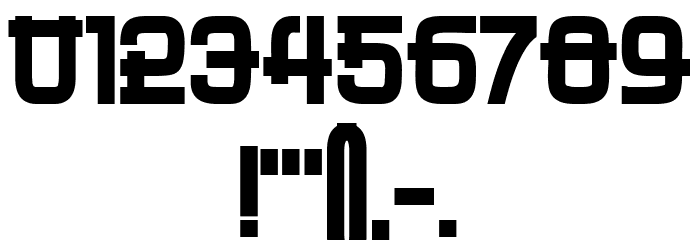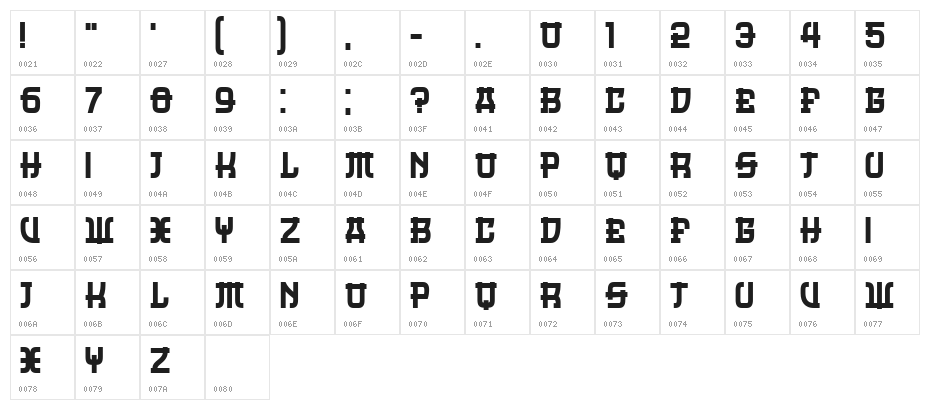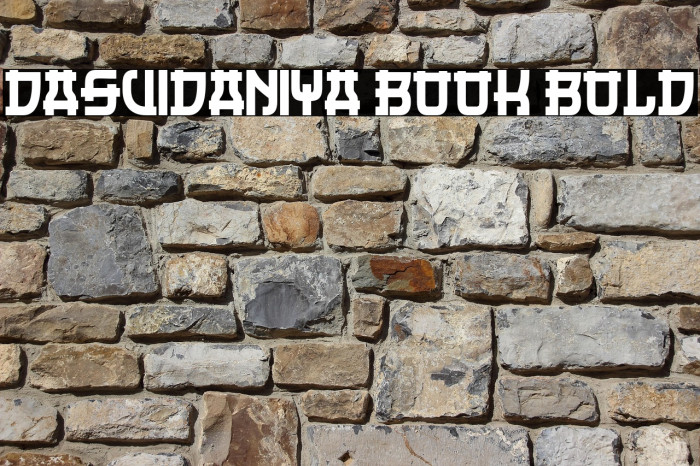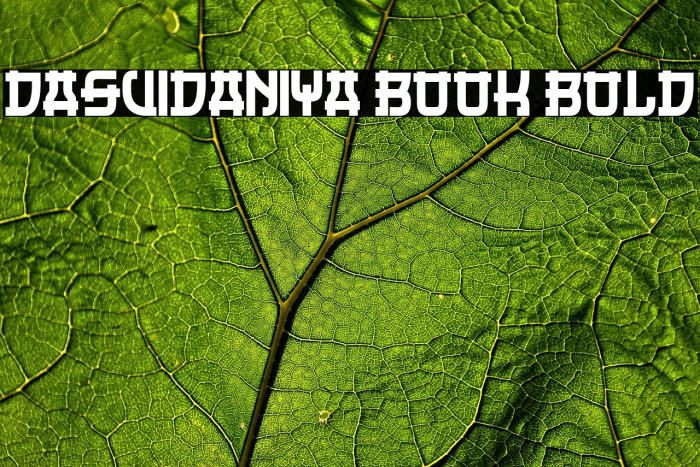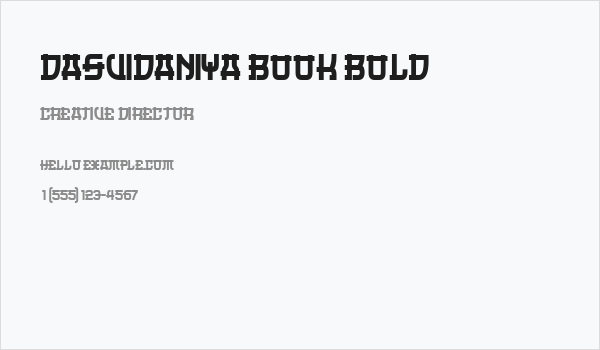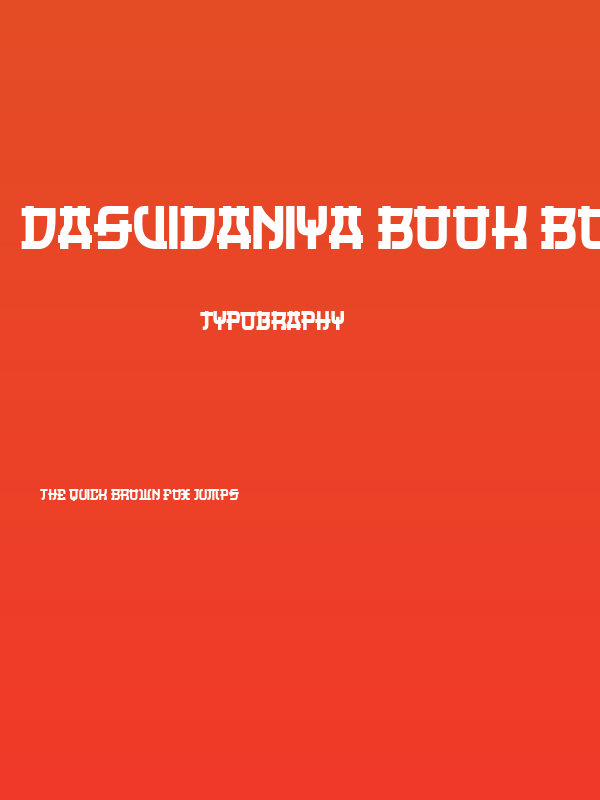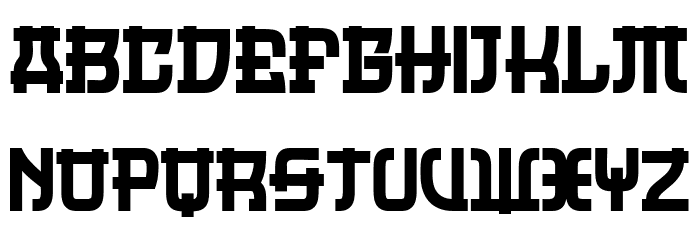
Dasvidaniya Book Bold Font
Dasvidaniya Book Bold Description
This font features a bold, geometric design with a strong presence. The characters are constructed with thick, block-like strokes that give it a robust and industrial feel. The angular shapes and sharp edges contribute to its modern and assertive appearance. The uppercase letters are particularly striking, with a uniform height and width that create a cohesive look. The numerals and special characters maintain the same boldness, ensuring consistency across all text. This font is ideal for making a statement, with its eye-catching and memorable style.